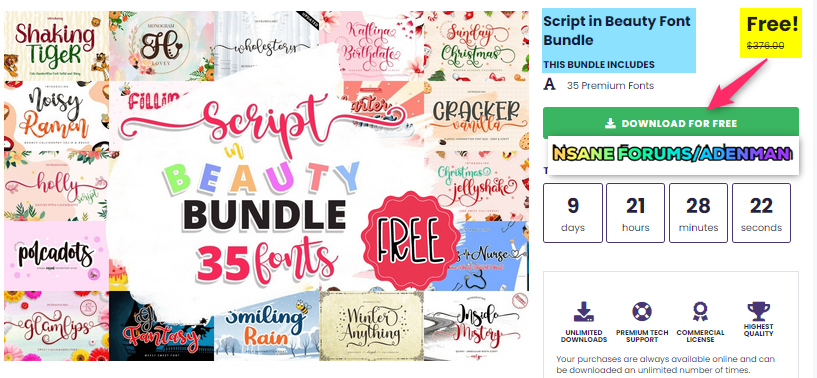
[Expired] Script in Beauty Font Bundle – Free Commercial License
Script in Beauty Font Bundle – Free Commercial License – 35 Premium Fonts – for Windows & Mac
In a wide variety of script styles: retro, quirky, playful, elegant, find the perfect font to suit your design project needs. Get Script in Beauty Font Bundle with a lifetime commercial license for free!
Script fonts are one of the most popular typefaces among designers these days. If you’re looking for a new font to add to your collection, check out this Script in Beauty Font Bundle!
This bundle features 35 high-quality fonts, in a wide variety of script styles; retro, quirky, playful, elegant and more! This is the perfect free collection if you want to add versatile and fun fonts to your font library! A lifetime commercial license is included with this bundle.
The Script in Beauty Font Bundle features 35 high-quality fonts, in a wide variety of script styles; retro, quirky, playful, elegant, and more! This is the perfect free collection if you want to add versatile and fun fonts to your font library! A lifetime commercial license is included with this bundle.